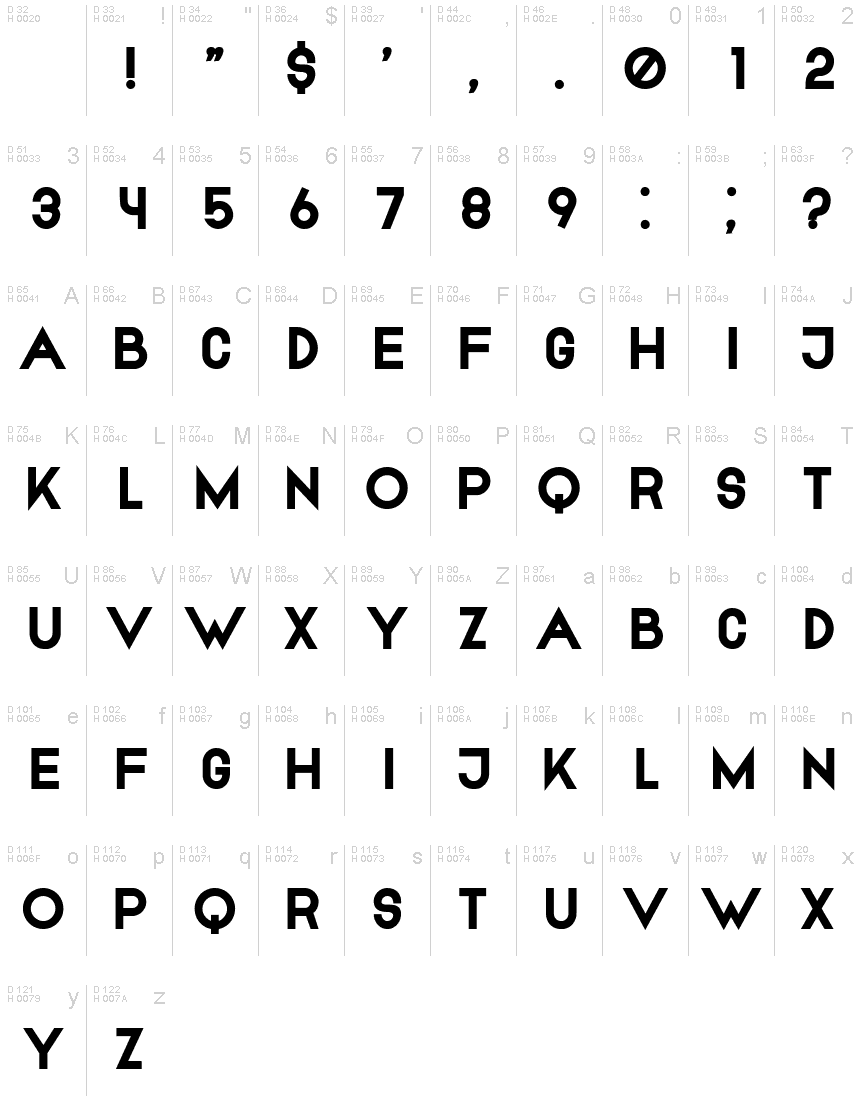
Marksman Regular
Introducing Marksman, a sleek sans serif font designed by Vladimir Nikolic. Its clean lines and modern style make it a versatile font suitable for a wide range of projects, from minimalist logo designs to bold headlines. Use it to add a professional touch to your branding, web design, or print projects. Marksman is the perfect choice for those who value simplicity and elegance.